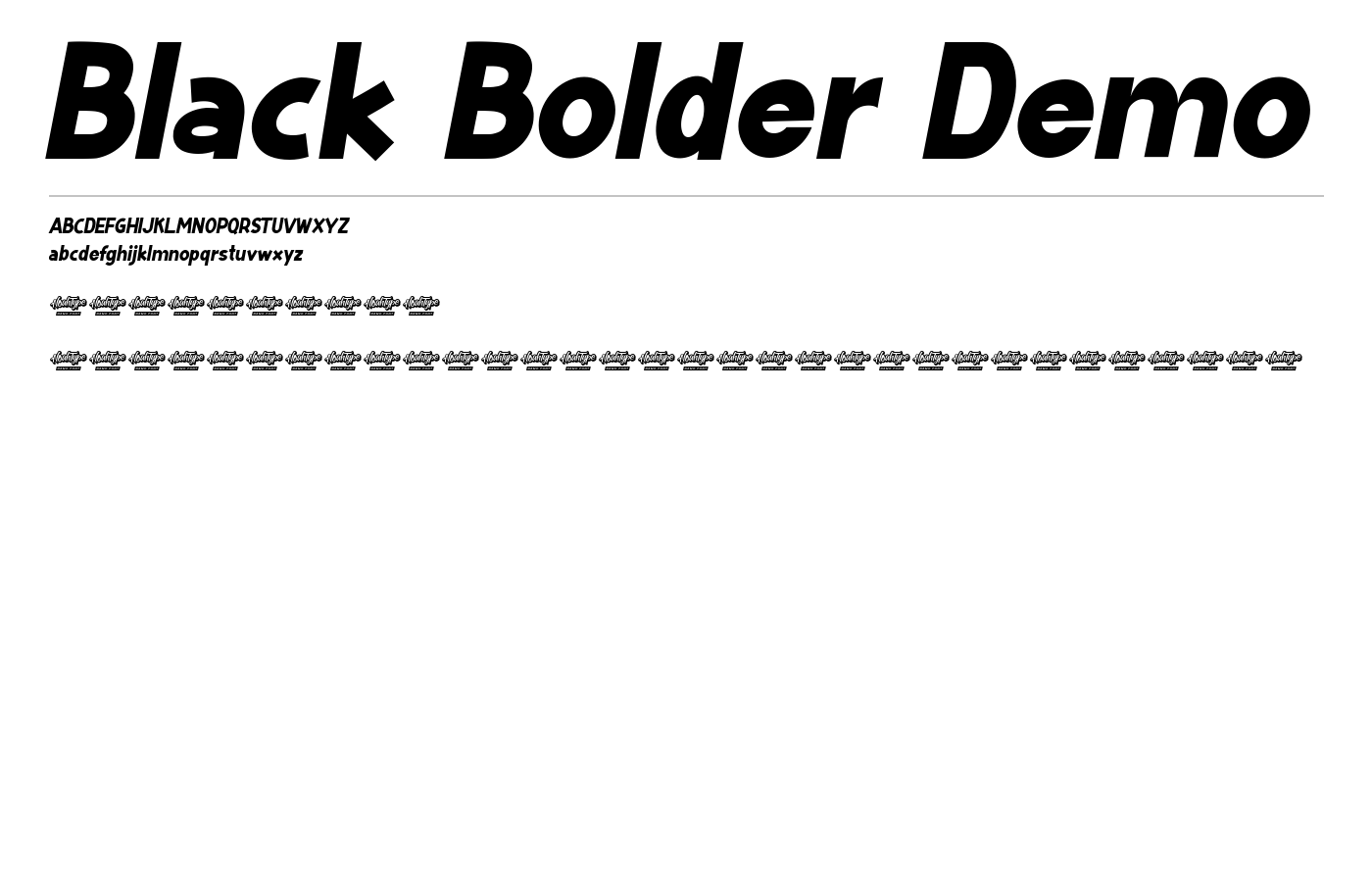
Black Bolder Demo is a bold, italicized sans serif font characterized by its thick strokes and slightly condensed letterforms, giving it a strong and dynamic presence. Its clean, geometric shapes combined with a moderate x-height create a modern and approachable feel, ideal for striking headlines, logos, and branding projects that require a confident and energetic look. This font works well where impact and readability are key, especially in advertising, websites, and editorial design.
Black Bolder Demo Font
About Black Bolder Demo Font
| Font family | Black Bolder Demo Font |